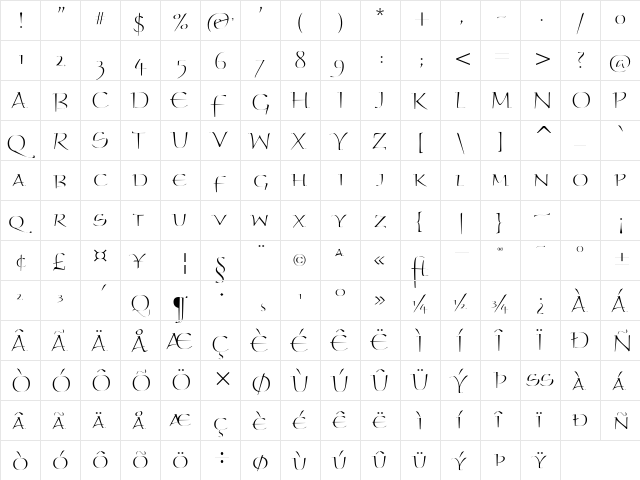
BraganzaSCITC-Light Light
Design Context for BraganzaSCITC-Light Typeface
BraganzaSCITC-Light offers clean, dependable letterforms without strong stylistic allegiance, making it a practical choice for designers who need flexibility. Its slender proportions lend an understated elegance to any composition.